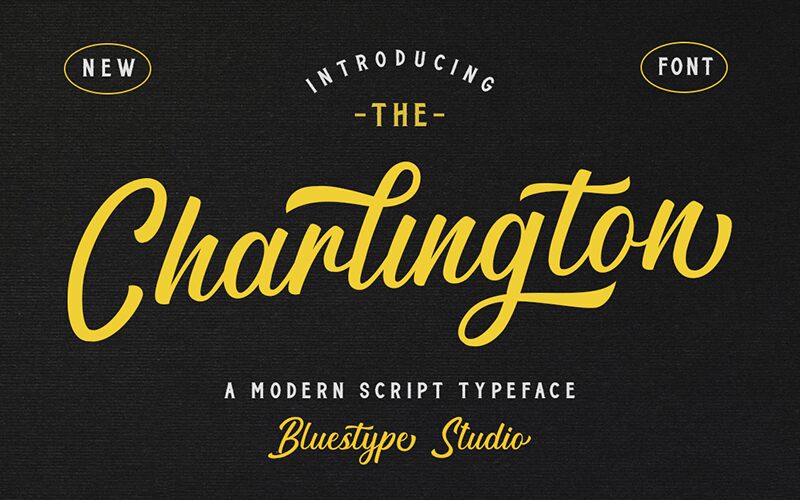
Charlington is a perfect choice if you're looking for a unique, vintage script font that will add character to your design projects. Created by the talented designer Jefri Dwi Alfatah, this semi-light typeface delivers a timeless and elegant feel that's both sophisticated and approachable. With its classic curves and delicate lines, Charlington is ideal for logo designs, branding projects, invitations, packaging designs, and much more. Whether you're creating something traditional or modern, Charlington is sure to leave a lasting impression on your audience with its effortlessly stylish appeal.